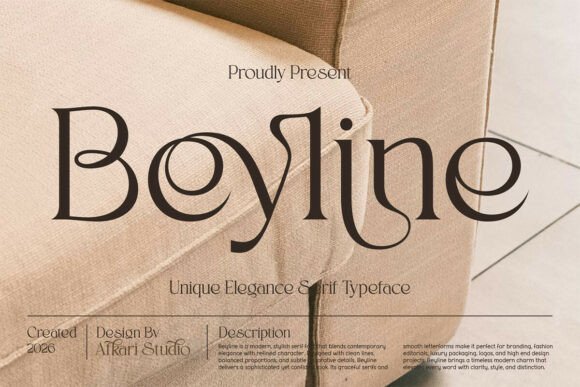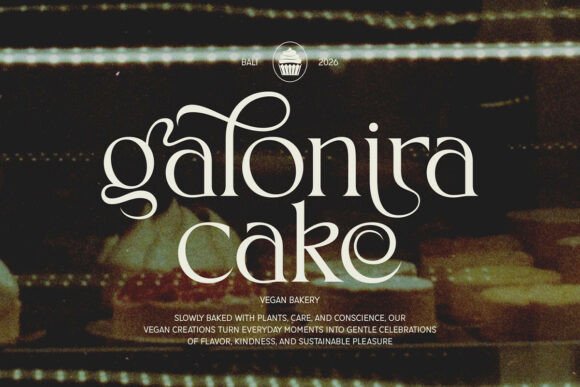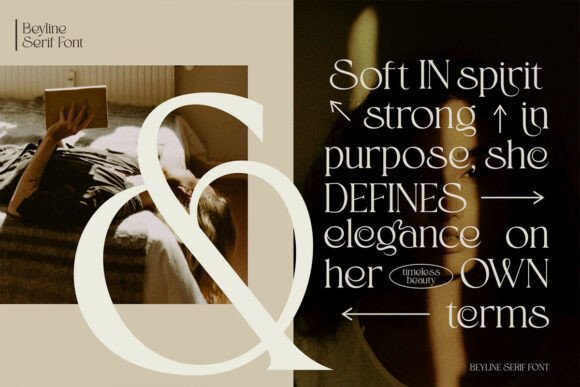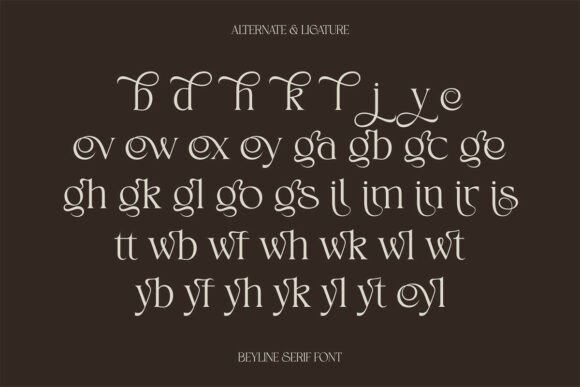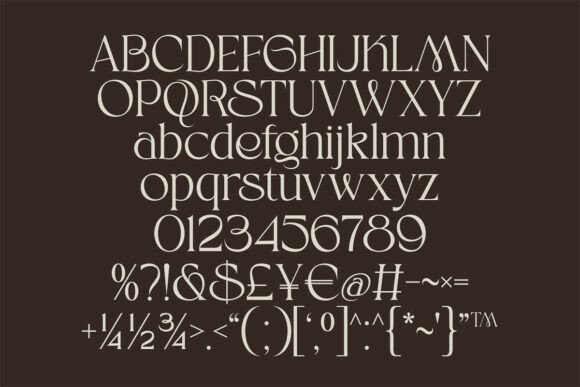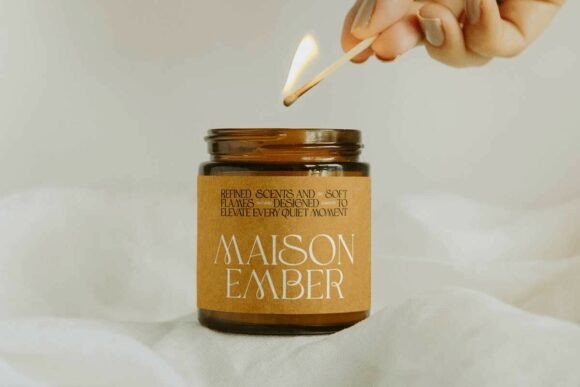
Unleashing Elegance: The Story Behind Beyline Font
Have you ever been captivated by the beauty of a perfectly crafted headline or the sophistication of a luxury brand’s logo? For designers, creating such moments is what drives us to push the boundaries of creativity. And, for those seeking the perfect tool to elevate their designs, we’re excited to introduce the Beyline Font – a unique, elegant serif typeface that embodies refined beauty and timeless sophistication.
Beyline Font is more than just a font; it’s a statement piece that exudes confidence and visual captivation. Its carefully crafted design makes it the perfect choice for luxury branding, high-end logos, and fashion editorials, among other applications. Whether you’re a seasoned designer or a creative enthusiast, the Beyline Font is an invaluable addition to your design arsenal, offering a polished and exclusive touch to every project.
Beyline Font Key Features
- Unique Characteristics: Beyline Font features a modern, elegant design with a unique blend of rounded and geometric shapes, making it perfect for creating sophisticated and stylish designs.
- Weight and Style: Beyline Font is available in various weights and styles, including Light, Regular, Bold, and Italic, allowing for a range of design options and creative expressions.
Beyline Font Review
As a designer, I was excited to dive into the Beyline font and see what it had to offer. Here are my honest thoughts:
- ✨ Unique aesthetic: Beyline has a distinctive, modern look that sets it apart from other fonts. Its blend of clean lines and subtle curves makes it perfect for branding and visual identities.
- ✨ Legibility: The font is highly legible, even at small font sizes, making it a great choice for body text and other large blocks of copy.
- ✨ Versatility: Beyline is suitable for a wide range of applications, from digital interfaces to print materials, and even works well for both display and text uses.
- ⚠️ Limited language support: While Beyline is available in several languages, it’s not as comprehensive as some other fonts, which may be a limitation for global brands or companies.
- ⚠️ Limited customization options: Beyline is a pre-designed font, and while it’s highly customizable, it may not offer the level of customization that some designers require.
Overall, I think Beyline is a solid choice for designers looking for a modern, versatile font. While it may have some limitations, its unique aesthetic and high legibility make it a great addition to any design project.
Getting the Most Out of Beyline Font
For optimal results, use Beyline Font in combination with a clean and minimalist design. Pair it with a simple background and bold lines to create a striking visual effect. Use it for headings and titles to add a touch of sophistication and elegance.
Beyline Font is ideal for use in creative projects, such as:
– Magazine and newspaper layouts
– Brochures and flyers
– Business cards and letterheads
– Social media graphics and advertisements
Alternatives to Beyline Font for Designers
Open Sans is a popular sans-serif font that is highly legible and versatile. It is suitable for both body text and headings. Open Sans is a great alternative to Beyline Font for designers who want a clean and modern look. It has a similar feel to Beyline Font but with a more neutral tone.